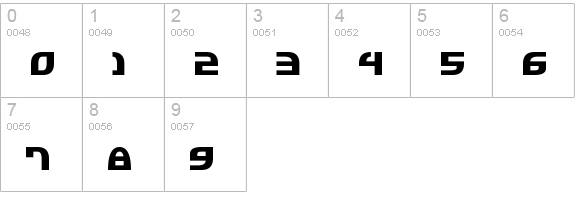
Jannisaries Bold is a strong, high-contrast variant in the Jannisaries typeface family \xE2\x80\x94 well suited to headlines, attention-grabbing titles, and strong calls-to-action.
Introducing Jannisaries Bold font, a striking typeface that embodies strength, power, and modernity. With its bold and commanding presence, this font is sure to make a statement in any design project. Jannisaries Bold exudes confidence, making it perfect for headlines, titles, and logo designs that demand attention. Its strong and sturdy letterforms are meticulously crafted, ensuring legibility and readability even at smaller sizes. But what makes Jannisaries Bold truly exceptional is that it is not only visually captivating but also free for download. Yes, you heard it right – this remarkable font is freely available to download at FontsMarket.com. Now you can add a touch of boldness to your designs without breaking the bank. Whether you're working on a branding project, advertising campaign, or any other creative endeavor, Jannisaries Bold font is here to elevate your work to new heights. Its versatility and timeless appeal make it a valuable asset in any designer's toolkit. So why wait? Unleash your creativity and download Jannisaries Bold font today from FontsMarket.com. Elevate your designs with this free and captivating typeface that will leave a lasting impression on your audience.